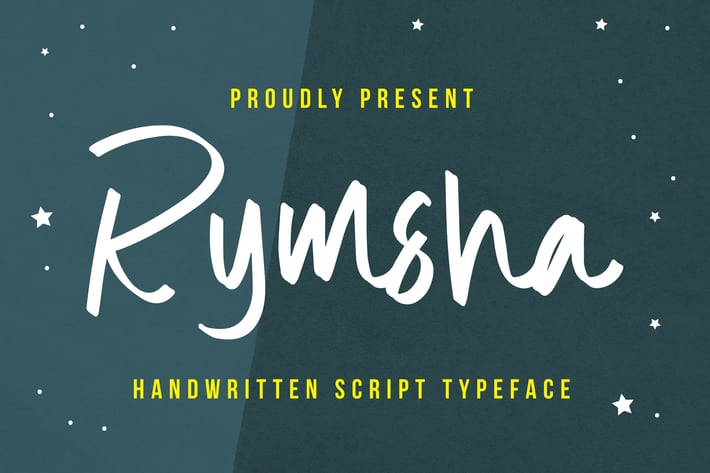
Rymsha - A Handwritten Script Typeface
So beautiful on invitation like greeting cards, branding materials, business cards, quotes, posters, and more!